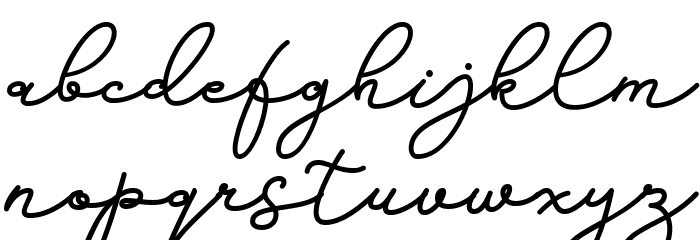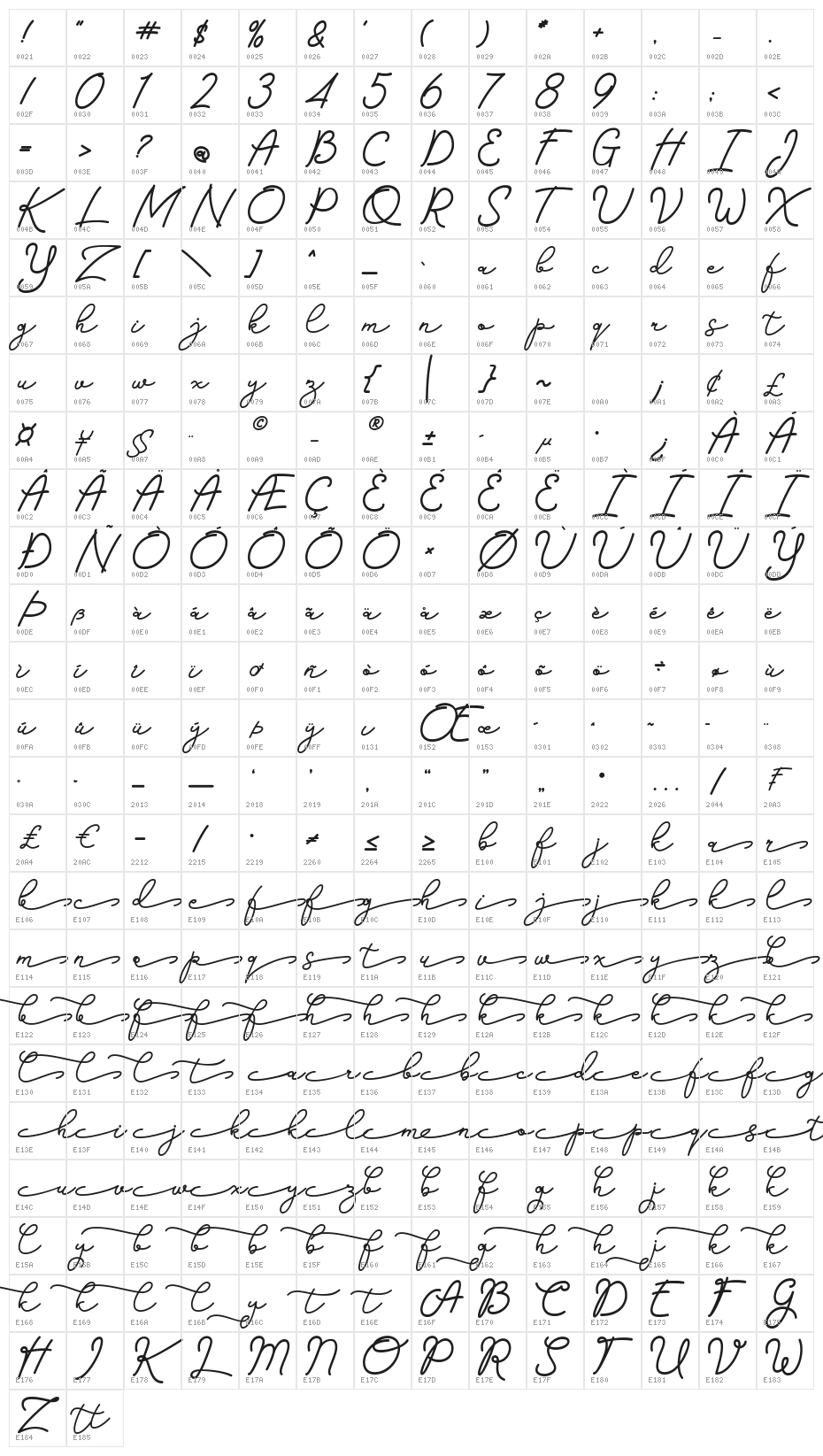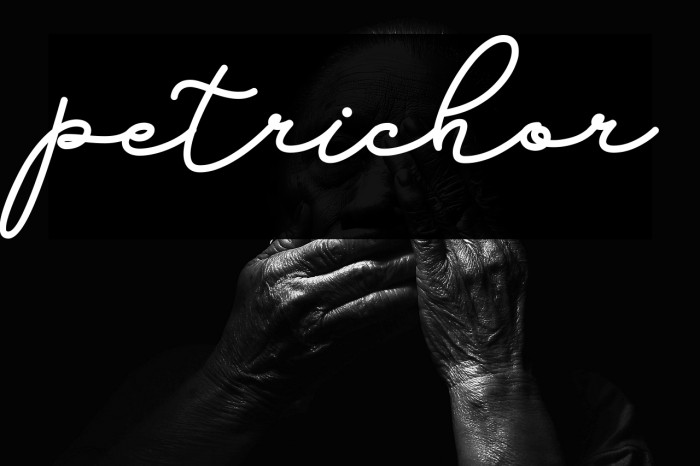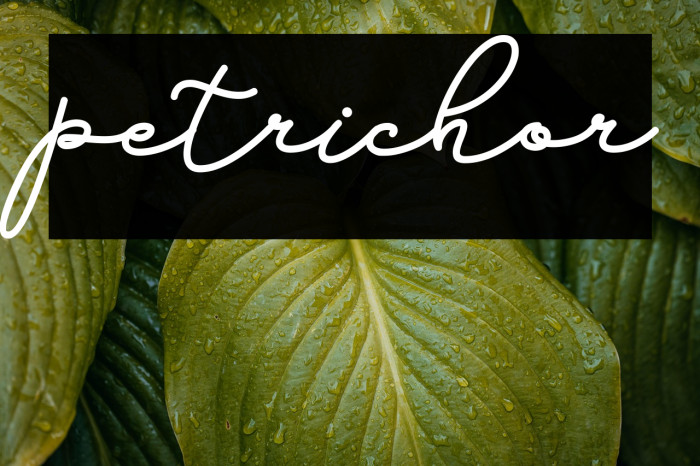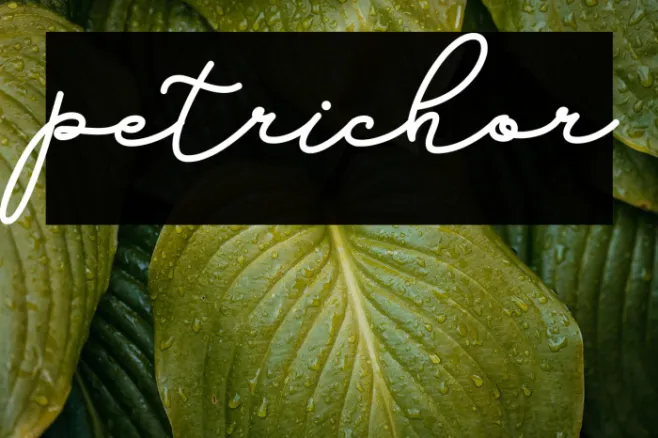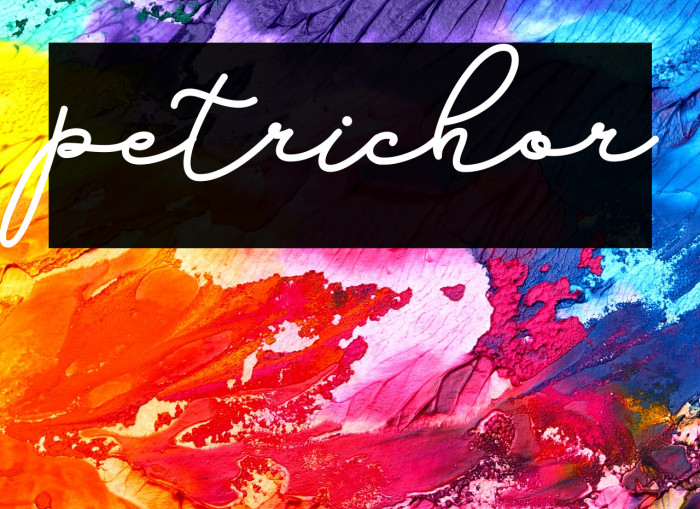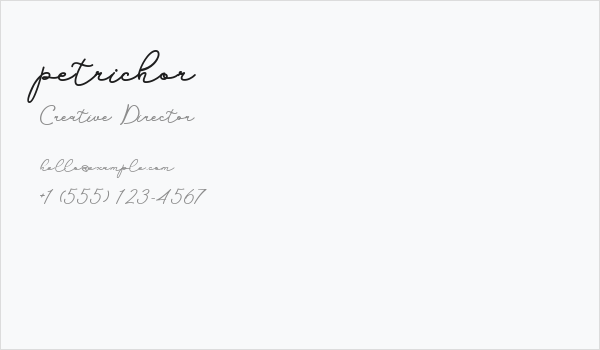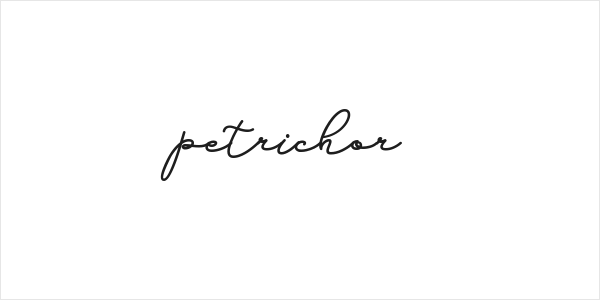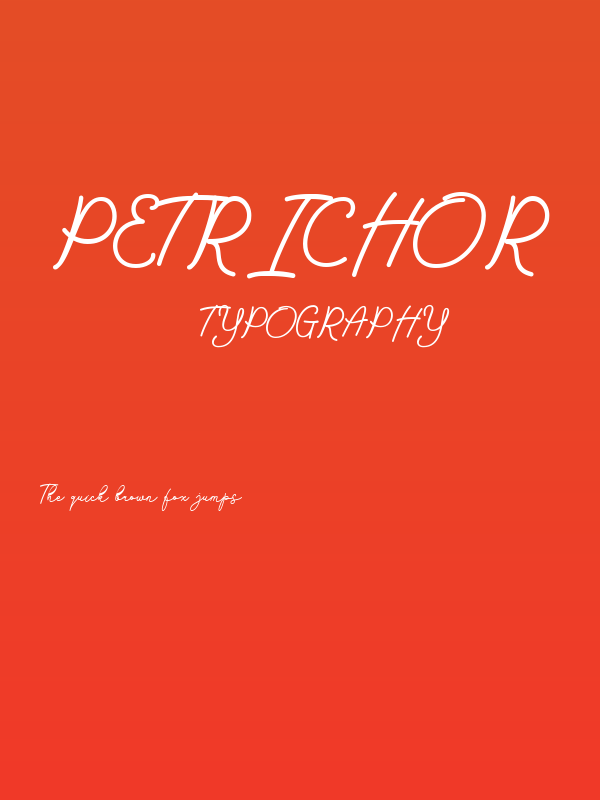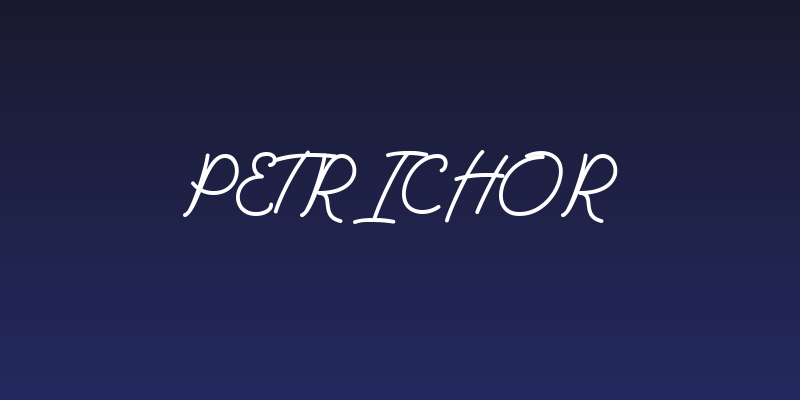
petrichor Font
This font features a smooth, flowing script style that mimics elegant handwriting. The uppercase letters are slightly more formal, with a consistent slant and rounded edges, while the lowercase letters maintain a casual, connected appearance. The numerals are clear and easy to read, maintaining the same fluidity as the letters. Special characters are integrated seamlessly, enhancing the font's versatility. The overall design is both sophisticated and approachable, making it suitable for a variety of applications.
A smooth, flowing script font with elegant, connected letters.
- Proposed Projects: Ideal for wedding invitations, greeting cards, branding projects, and social media graphics.
- Category: Script
- Overall Style: Elegant
- Use Case: Logos, Invitations, Decorative text